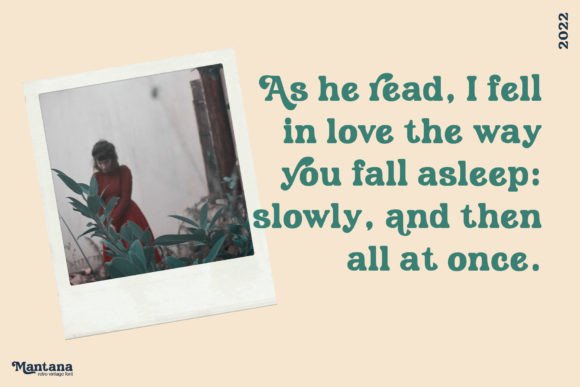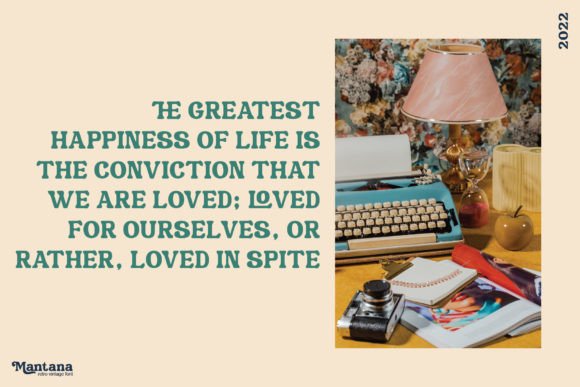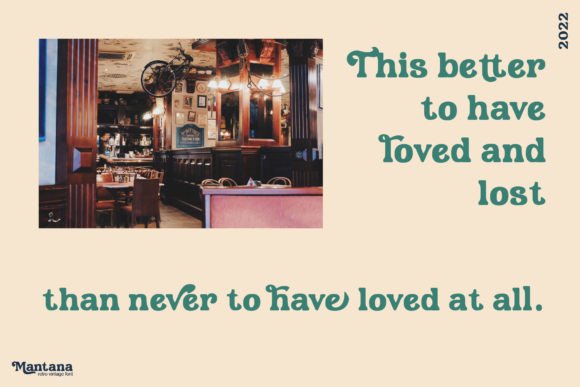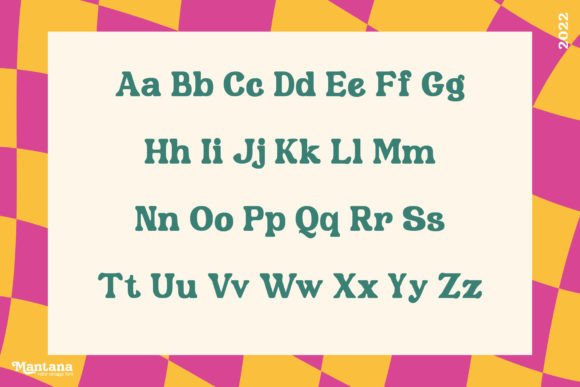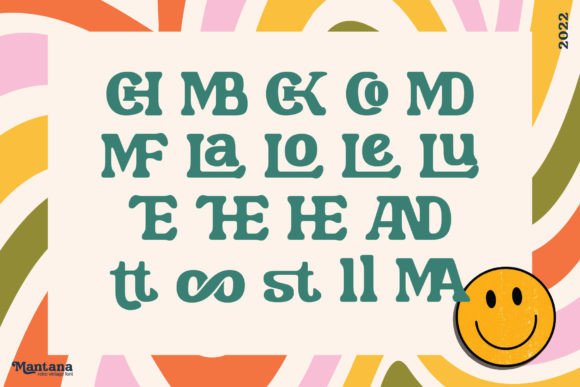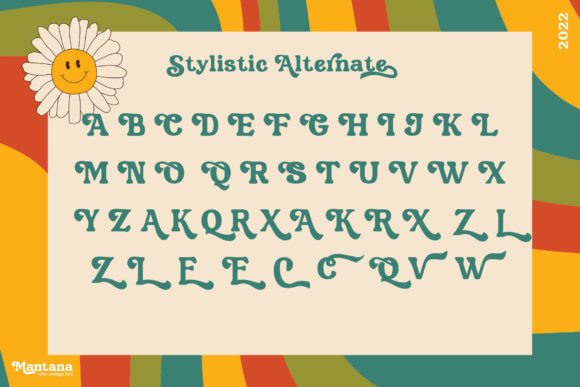
Introduction to Mantana Font
Have you ever been stuck in the middle of a creative project, struggling to find the perfect font to bring your idea to life? We’ve all been there. One moment, everything clicks, and you stumble upon that elusive design element that elevates your project to the next level. For designers, discovering a high-quality font can be a game-changer, and that’s exactly what we’re about to dive into.
Meet the Mantana Font, a vintage-inspired serif font that’s making waves in the design community. Its unique blend of funkiness, roundness, and high contrast is perfect for grabbing attention and adding a touch of nostalgia to any creative project.
With its retro charm and versatility, the Mantana Font is a valuable resource for designers looking to add some personality to their work. Whether you’re working on a display, head text, or logotype, this font is sure to deliver. And the best part? It’s available for free download, making it an accessible design resource for anyone looking to take their creative project to the next level.
Mantana Font Key Features
- High-quality design with a unique, modern aesthetic, perfect for creative projects.
- Transparent background, allowing for easy customization and blending with other design elements.
- Designed with a large x-height, making it highly legible and suitable for body text and headings.
- Available in multiple weights, from light to bold, allowing for a range of design possibilities.
Honest Review: Mantana Font
As a designer, I’ve had the pleasure of working with various fonts, and I’m excited to share my thoughts on the Mantana Font. This font is a high-quality addition to any design resource collection, offering a unique and creative flair to your projects.
One of the standout features of the Mantana Font is its transparent background, making it an ideal choice for designers who want to add a touch of elegance to their work. The font is also available for free download, which is a huge plus for those on a budget or just starting out.
- Unique and creative flair
- May not be suitable for all design styles
- Some users may find the font too ornate
Overall, I’m impressed with the Mantana Font, and I think it’s a great addition to any design resource collection. While it may not be perfect for every project, it’s definitely worth considering for your next creative project. With its high-quality design and transparent background, the Mantana Font is sure to add a touch of sophistication to your work.
Tips for Getting the Most Out of Mantana Font
To get the most out of the Mantana Font, use it in a creative project that showcases its unique design. Combine it with other design resources, such as graphics and images, to create a visually appealing design. Additionally, use the font in a free download or a high-quality design project to take advantage of its full potential.
The Mantana Font is commonly used in design projects that require a high-quality, transparent background font. It’s ideal for use in logos, branding, and other creative projects where a unique and stylish font is needed.